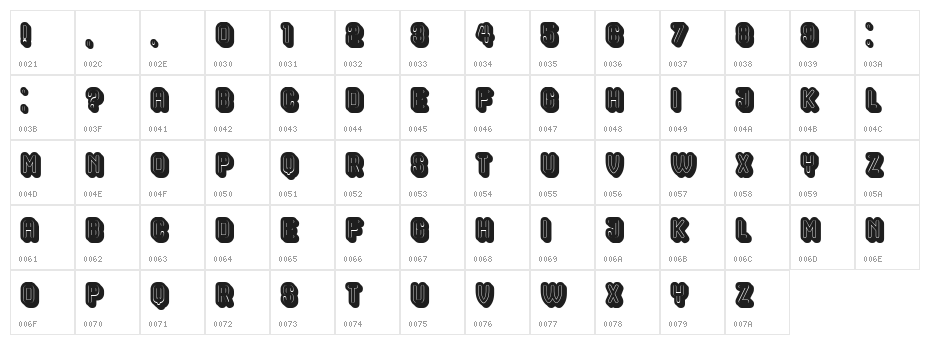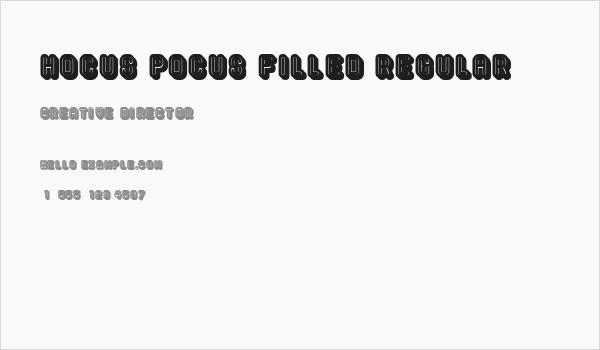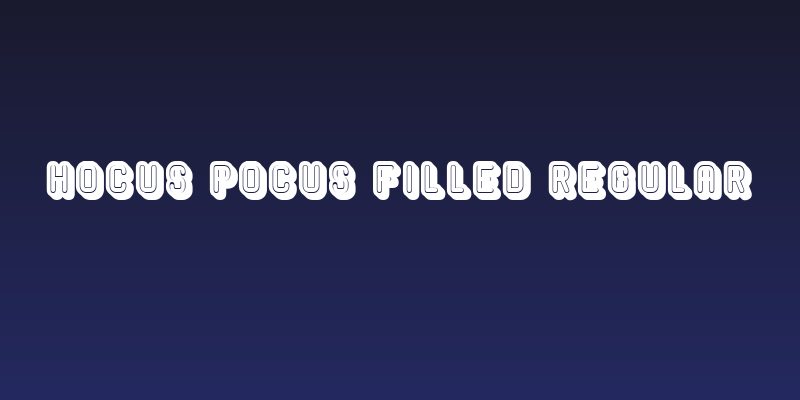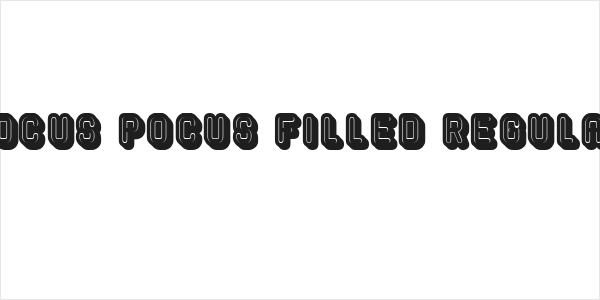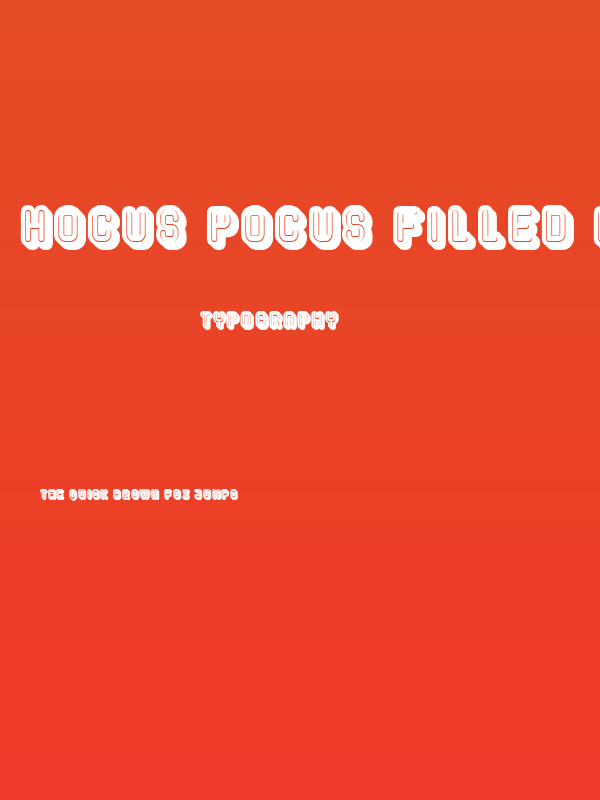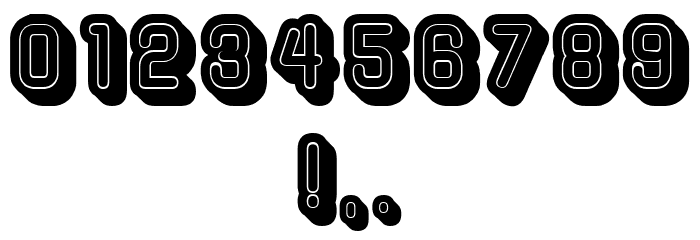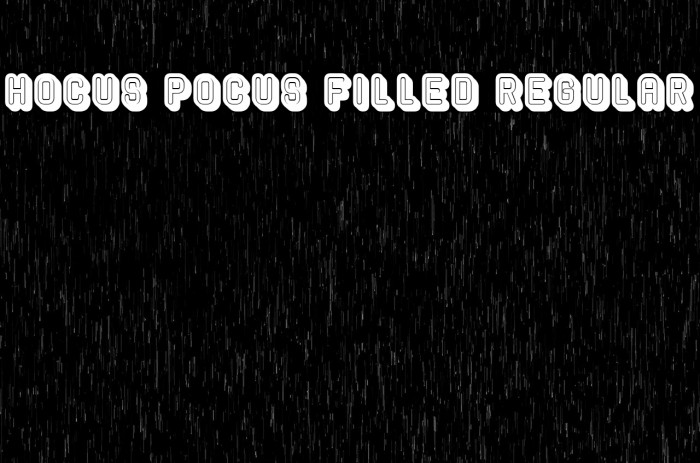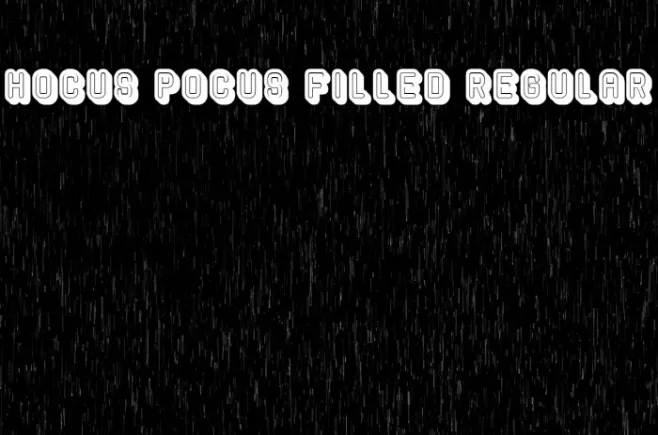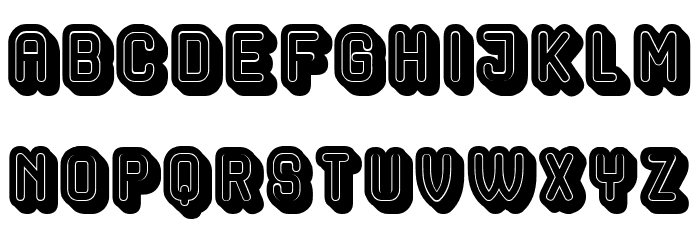
Hocus Pocus Filled Regular Font
Hocus Pocus Filled Regular Description
This font features a bold, playful design with a filled, rounded style that creates a sense of depth and dimension. The characters are outlined with a thick black border, giving them a striking appearance. The uppercase and lowercase letters maintain a consistent style, with smooth curves and a uniform thickness. The numbers and special characters follow the same design principles, ensuring a cohesive look across all elements. This font's unique style makes it stand out, making it ideal for projects that require a bold and eye-catching typeface.
| Overall Style | Playful, Modern |